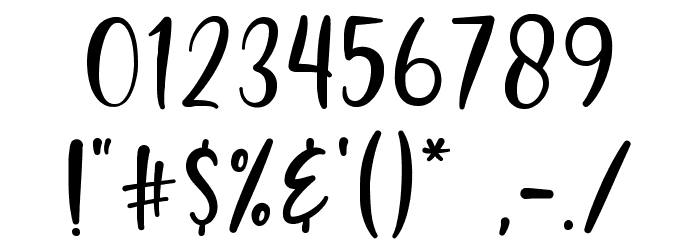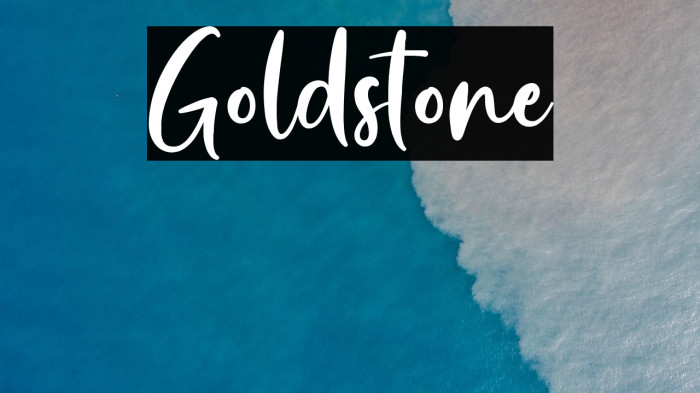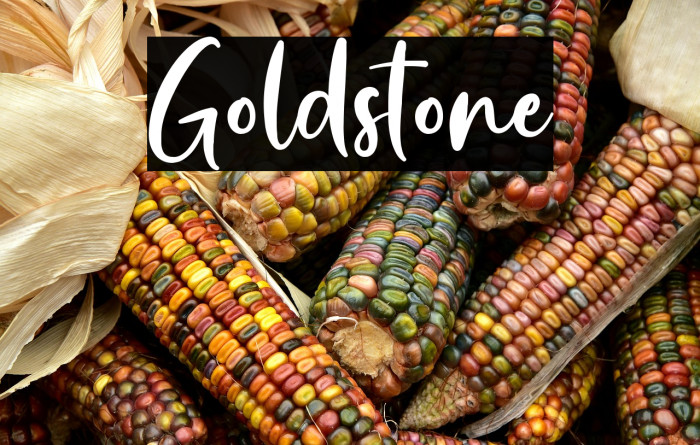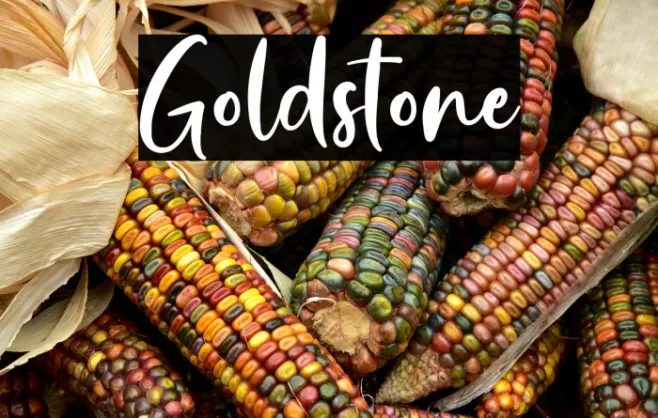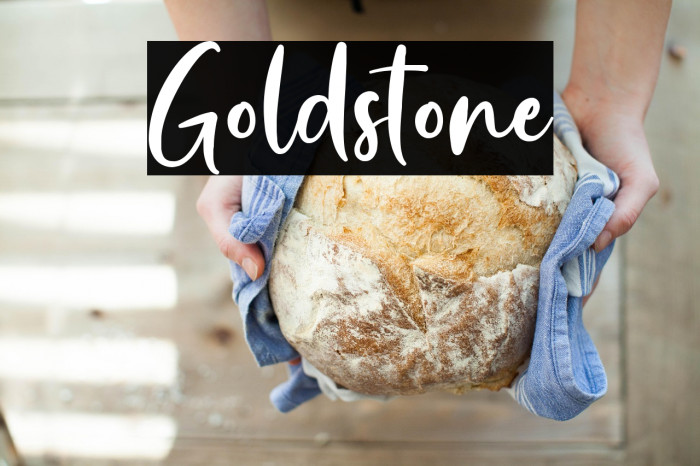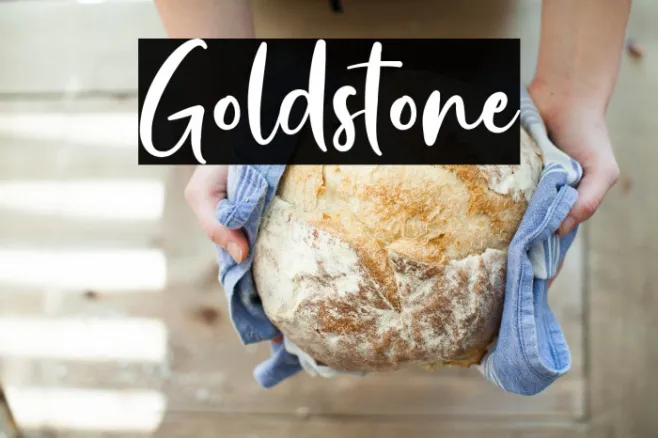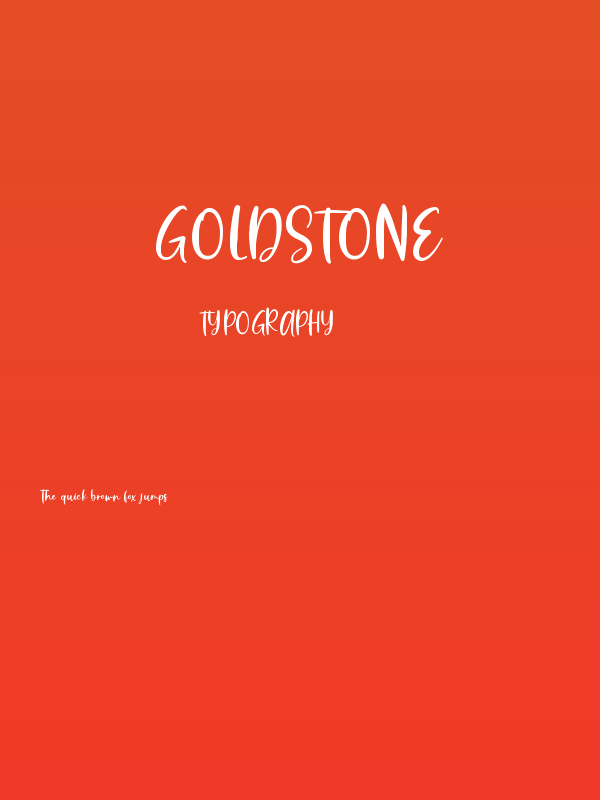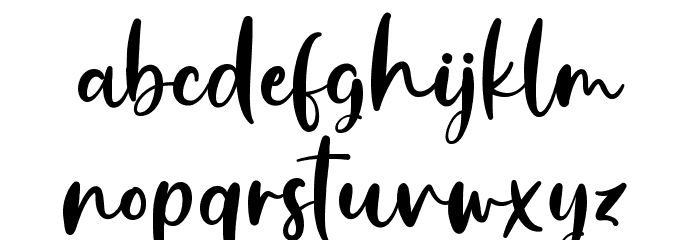
Goldstone Font
Goldstone Description
This font features a lively and expressive handwritten style, characterized by its fluid and dynamic strokes. The uppercase letters are bold and slightly slanted, giving a sense of movement and energy. The lowercase letters maintain a consistent flow, with some characters extending below the baseline, adding a playful touch. The numerals are clear and legible, matching the overall energetic style of the font. Special characters are well-integrated, maintaining the same lively aesthetic. This font is perfect for projects that require a personal and informal touch, such as invitations, greeting cards, or creative branding.